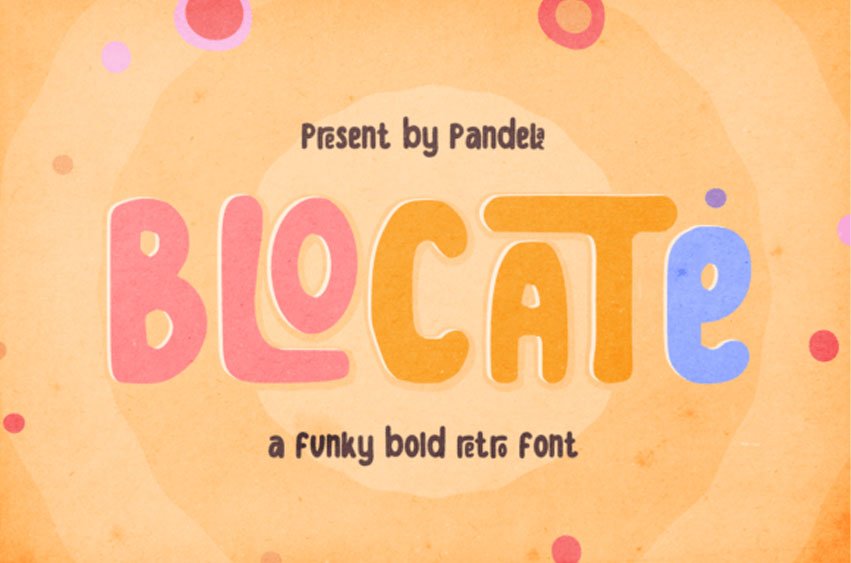
Blocate Font
Blocate Font is a bold retro display font that feels clean and fun an incredible modern retro aesthetic. This font features a ligature feature on capital letters which allows the font to look unique with a wavy style.
Use this Blocate font to add that special modern retro touch to any design idea you can think of!